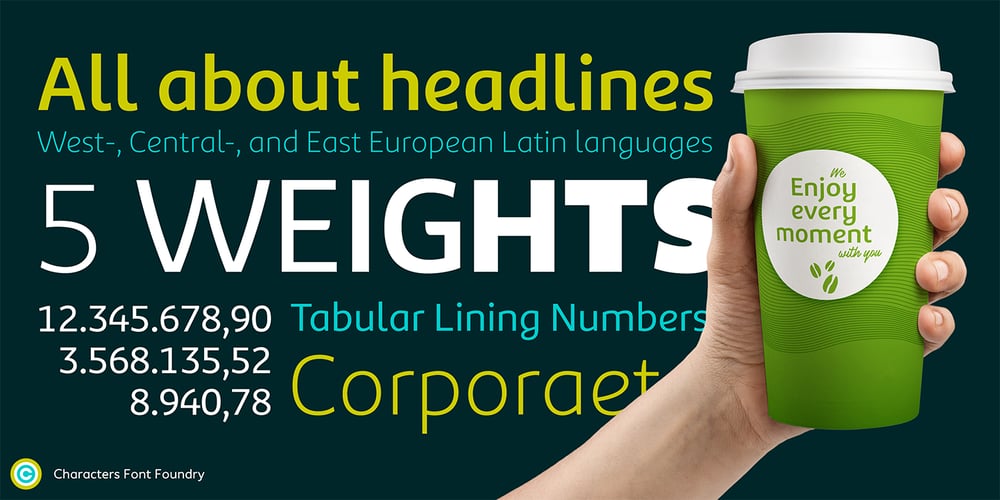
Corporaet Font Family was designed by René Verkaart and published by Characters Font Foundry. Corporaet contains 5 styles and family package options. CFF Corporaet is a corporate brand typeface that comes in 5 sans serif weights; Light, Regular, SemiBold, Bold & Black. Its character is warm, friendly, humane, clear and soft. The humanistic design style is rooted in the cursive style of handwriting, clearly visible in letters such as the e, f, g and y. The spurless letters round it off. Striking characters, such as the z, and small quirky details make it both a corporate and a friendly typeface. The proportions of each character are carefully constructed in such a way that they’re balanced and create an even colour in text. That’s why it works extremely well with long body copy. Making it a hero for magazines and editorial design challenges. The Corporaet fonts can be applied in large sizes for print or web, bringing out the refined details that give the fonts its distinctive personality.